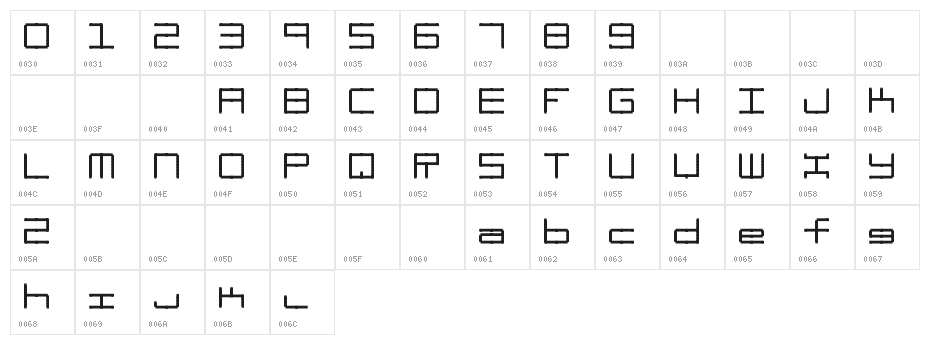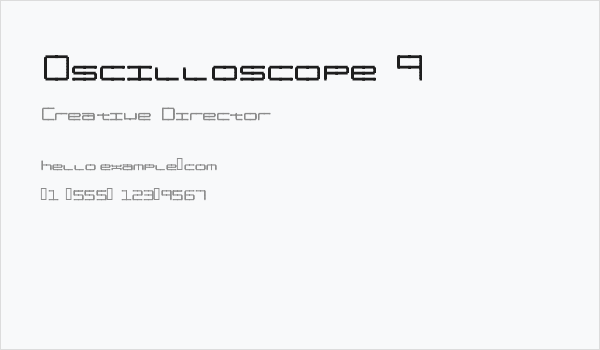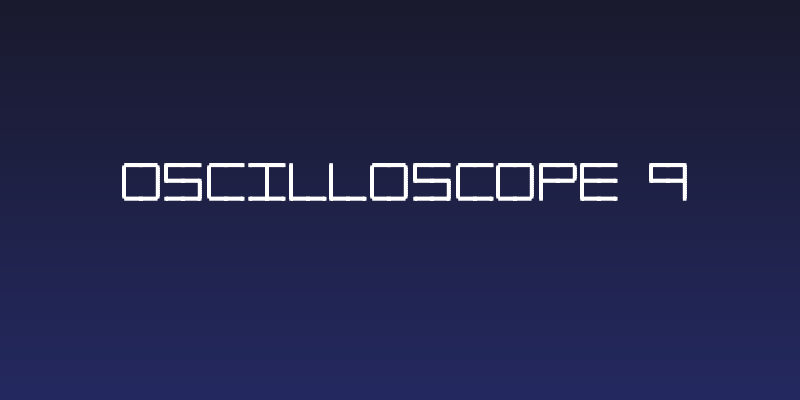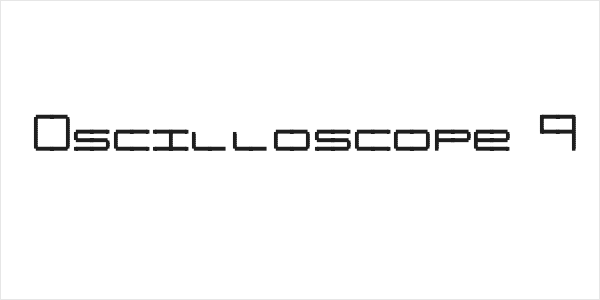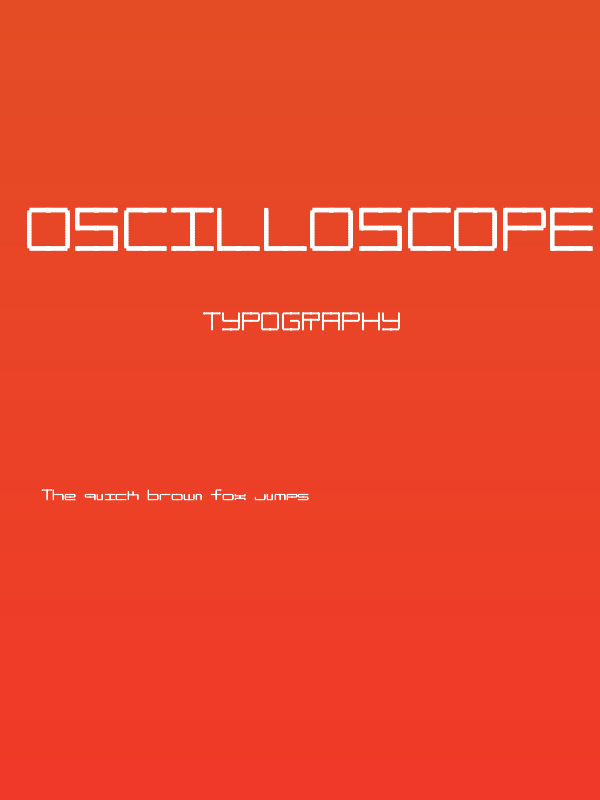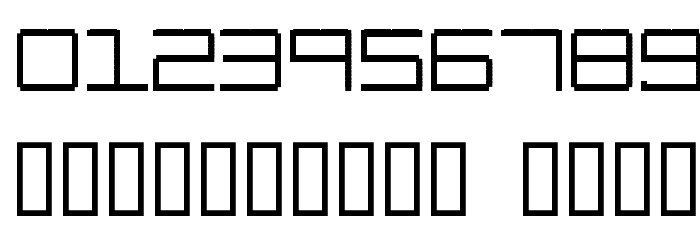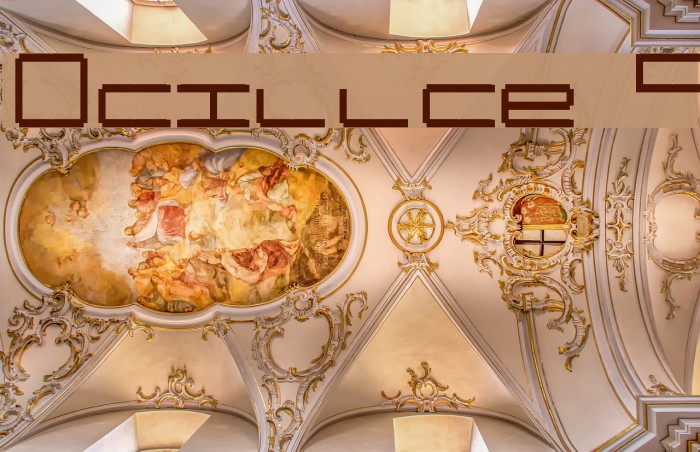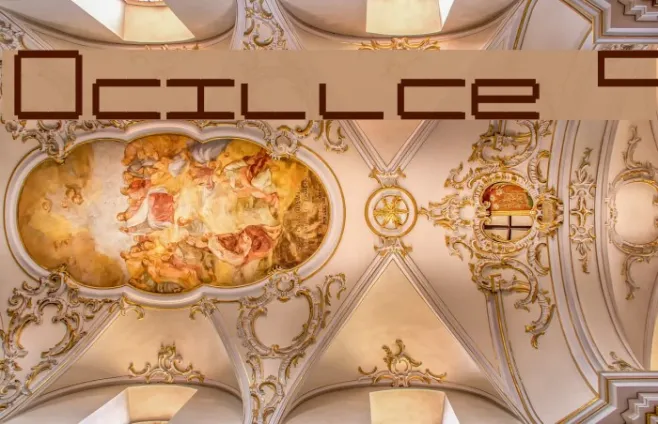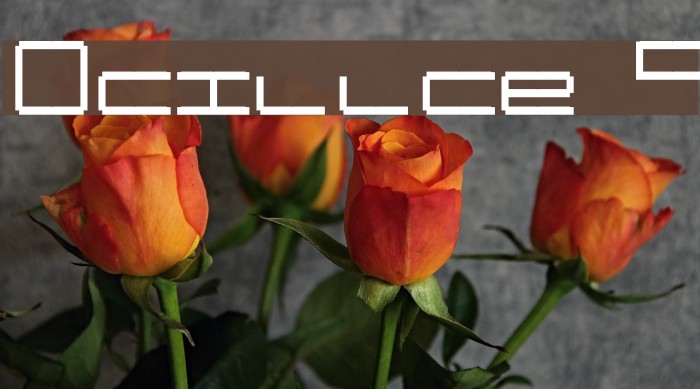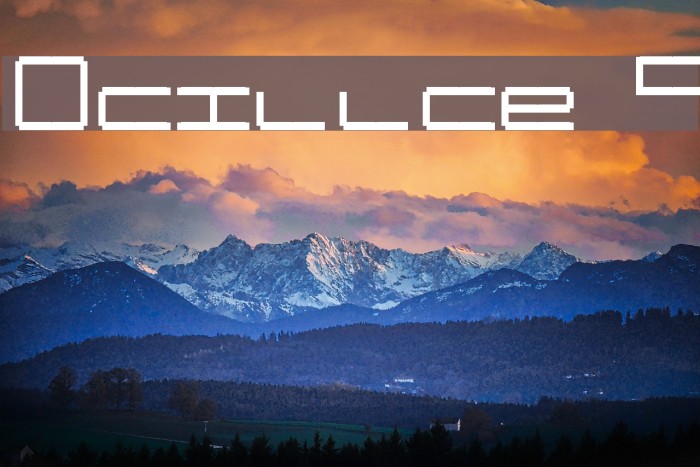
Oscilloscope 4 Font
Oscilloscope 4 Description
This font features a geometric, grid-like design reminiscent of digital displays or electronic devices. Each character is constructed with sharp, angular lines and consistent stroke widths, creating a uniform and technical appearance. The uppercase and lowercase letters maintain a consistent height, contributing to a monospaced feel, although the font is not strictly monospaced. The numerals and special characters follow the same design principles, ensuring a cohesive look across all glyphs. The overall style is modern and minimalistic, suitable for contexts where a futuristic or technological aesthetic is desired.
| Use Case | Logos, Headlines, Digital interfaces |
| Proposed Projects | Ideal for technology branding, digital interfaces, video game design, and sci-fi themed projects. |